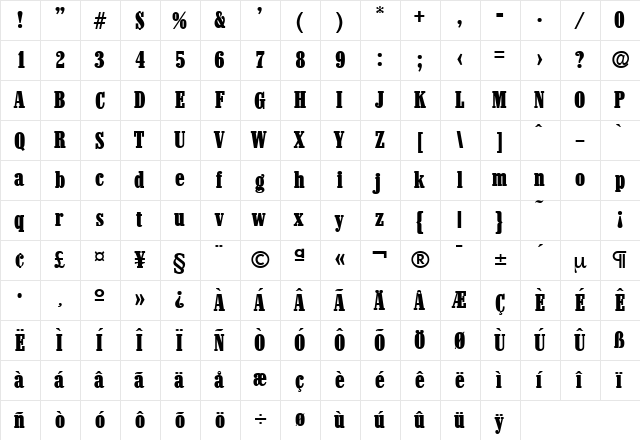
Colonel-Serial-Heavy Regular
Design Context for Colonel-Serial-Heavy Typeface
Colonel-Serial-Heavy offers clean, dependable letterforms without strong stylistic allegiance, making it a practical choice for designers who need flexibility.
Pro Tip: Pair Colonel-Serial-Heavy with a font of contrasting weight or personality to build a more expressive typographic hierarchy.